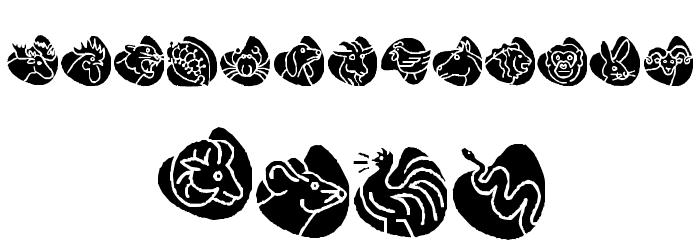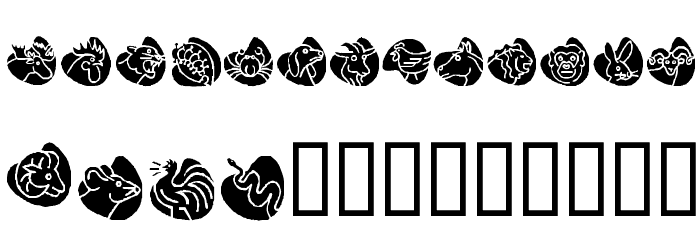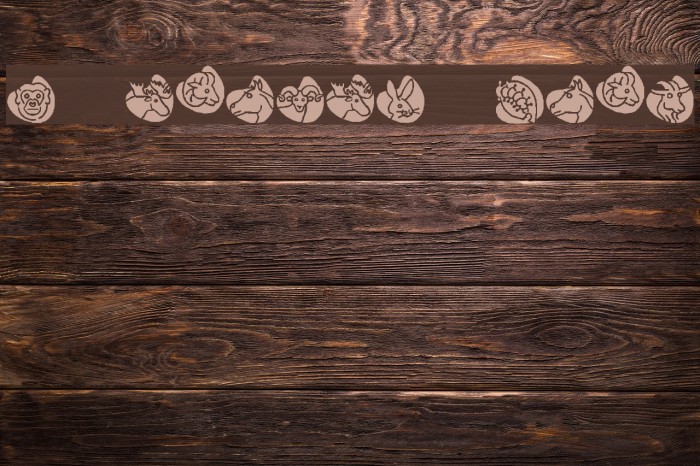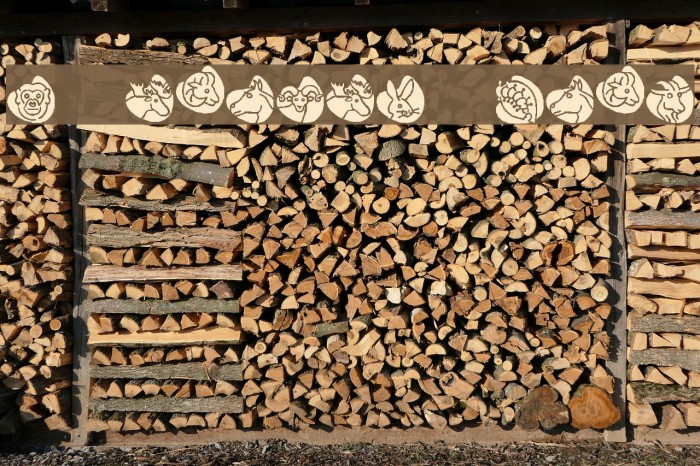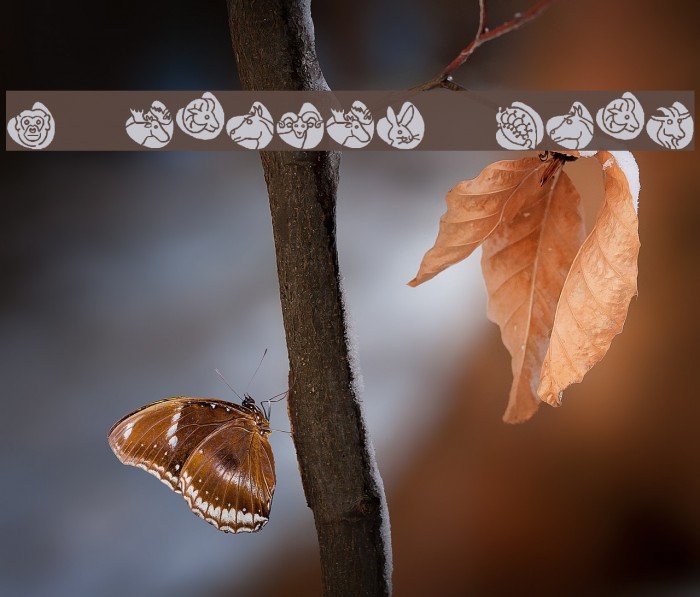
KR Animal Dings Font
This is a decorative dingbat font featuring a variety of stylized animal icons. Each character is represented by a unique animal illustration, ranging from common pets to exotic creatures. The designs are bold and playful, with a consistent circular motif that frames each animal. The style is whimsical and cartoonish, making it suitable for creative and informal projects. The icons are detailed yet maintain a simplicity that ensures clarity at various sizes.
A playful dingbat font with stylized animal icons in a circular motif.
- Proposed Projects: Ideal for children's books, educational materials, animal-themed party invitations, and playful graphic designs.
- Overall Style: Whimsical
- Use Case: Logos, Decorative elements, Educational materials